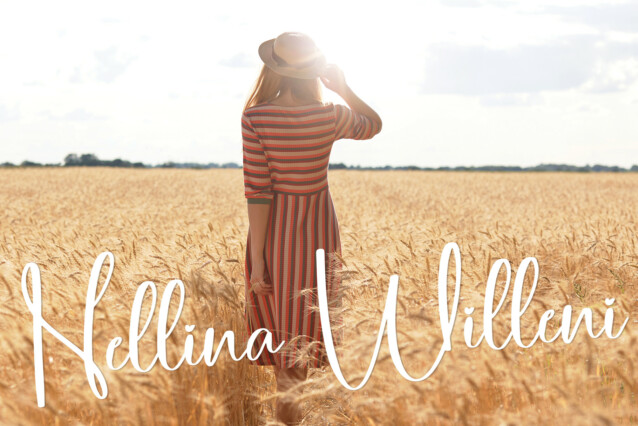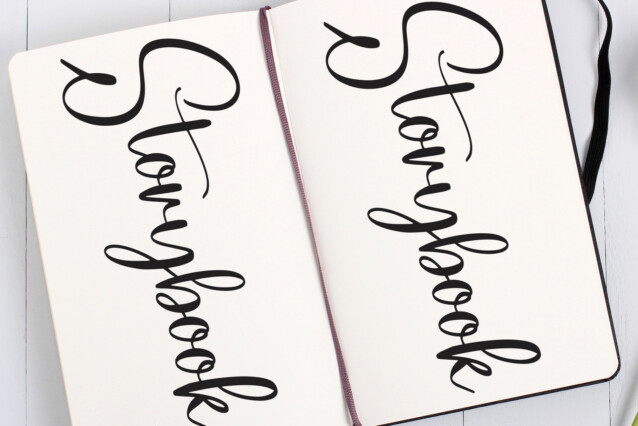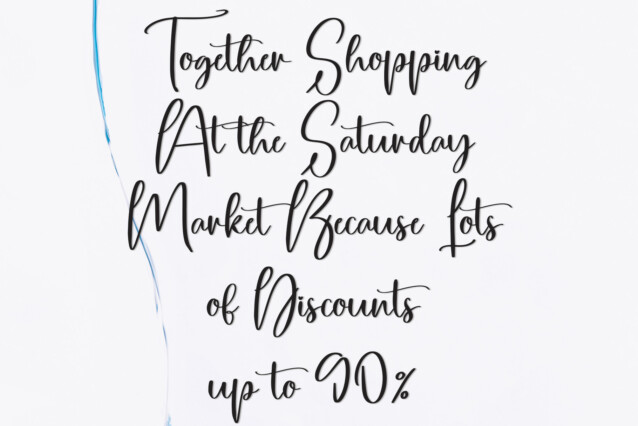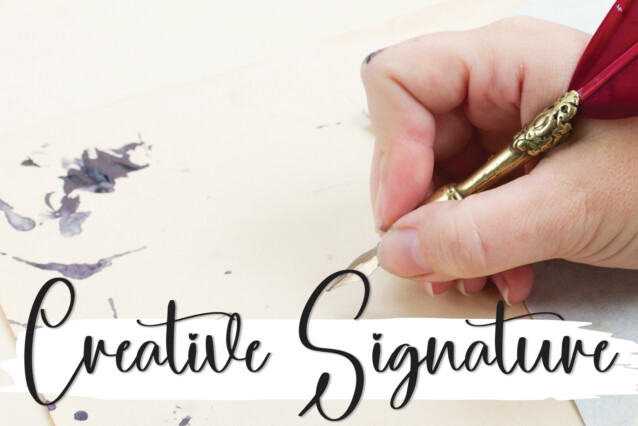
Handdrawn Script Font
Handdrawn Script Font is a modern and neat handwritten font. No matter the topic, this font will be an incredible asset to your fonts’ library, as it has the potential to elevate any creation.